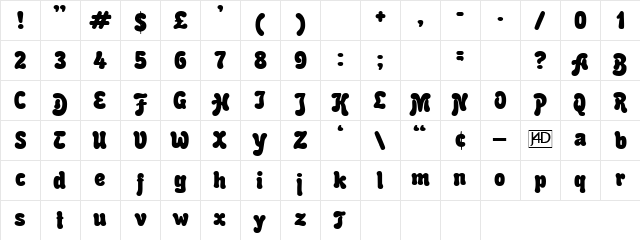
Rounded Informal softens its letterforms with rounded terminals, giving it an approachable, friendly quality that works well in consumer-facing and digital contexts.
Font Pairing: Pairs well with a rounded or humanist sans for body copy, maintaining the friendly tone without relying on Rounded Informal to carry extended reading.
Pro Tip: Use Rounded Informal for UI elements, app interfaces, and anywhere a friendly, approachable tone needs to be maintained without sacrificing clarity.